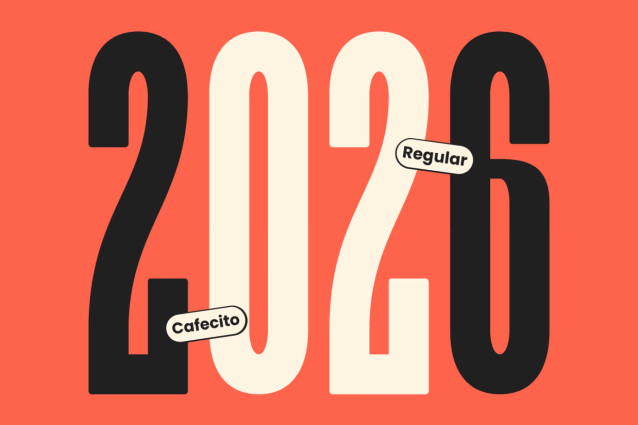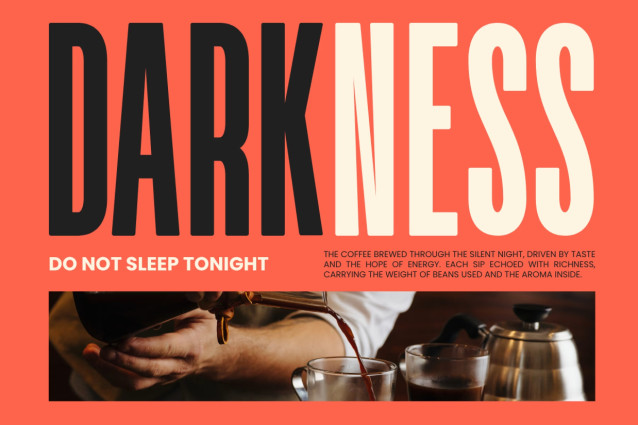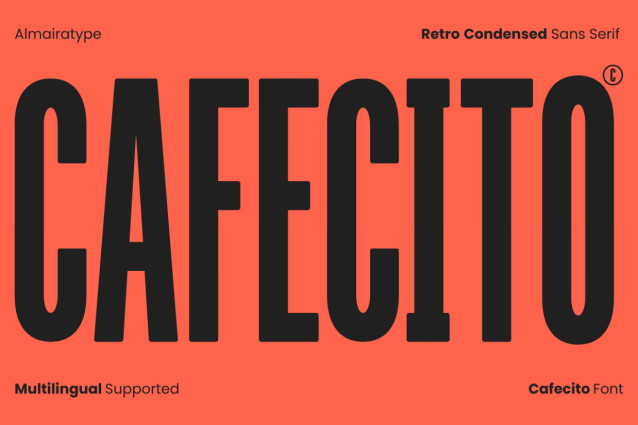
Cafecito Font
Make a bold, commanding, and delightfully nostalgic statement with Cafecito, an ultra-bold tall condensed retro font engineered for creators who want their headlines to pop with a cozy, high-energy coffee-lifestyle charm. Meticulously structured with a heavy display weight, tall narrow baselines, subtle spur details, and softly rounded corners, this versatile font brings an instant blend of vintage cafe culture warmth and clean modern commercial professionalism to any creative canvas.
Whether you are an apparel designer launching a fresh streetwear collection, a graphic artist establishing a bold culinary or lifestyle brand, or a high-volume print-on-demand seller optimizing listings for search engine conversions, Cafecito delivers unmatched readability and outstanding shelf appeal. For the crafting community and DIY enthusiasts, every single glyph has been technically polished and vector-optimized to ensure a smooth, effortless cutting and weeding experience on digital cutting machines like Cricut and Silhouette. Bring the powerful, compact, and timeless aesthetic of Cafecito into your commercial design toolkit today!